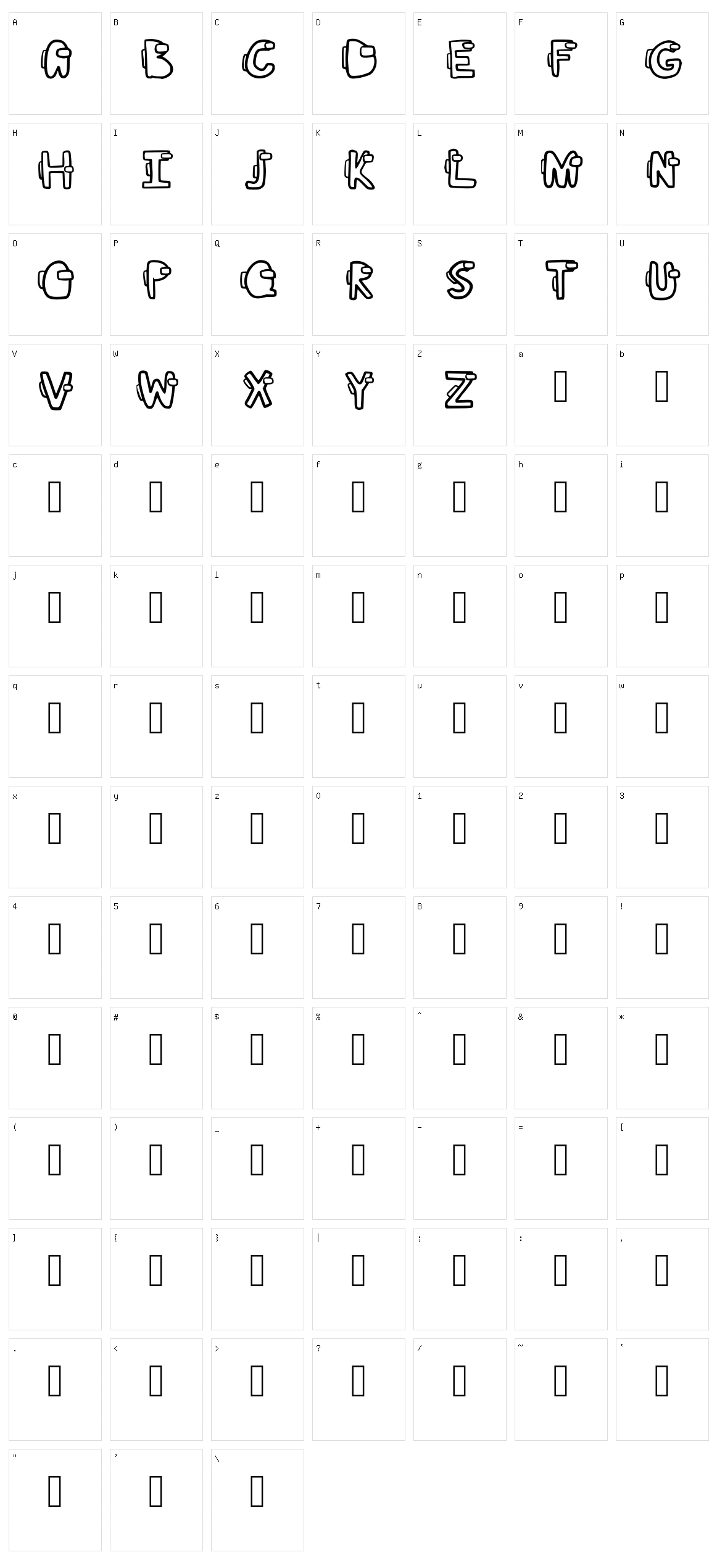
The free font Among Us is carefully designed by Leona Sky, showcasing a thoughtful balance of creativity and usability and falls under the Cartoon font style. When you download the ZIP file, it contains only 10.34 KB of font files, making it lightweight and quick to download. Please review the license details below to understand permitted usage and distribution rights. If license information is not available, we recommend using this font for personal projects only or contacting the author directly for commercial usage permissions.